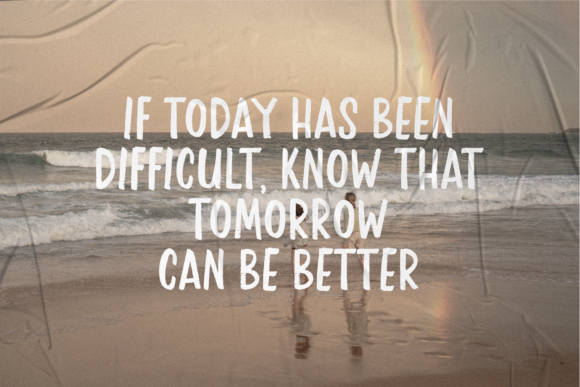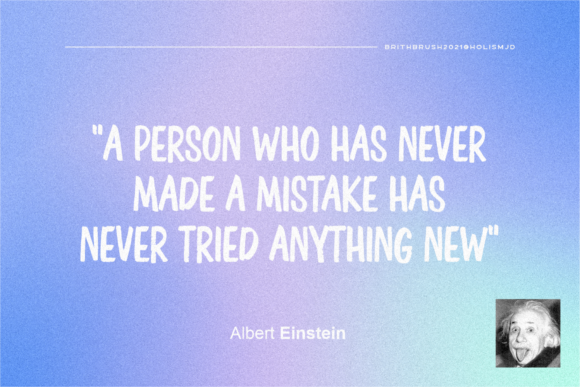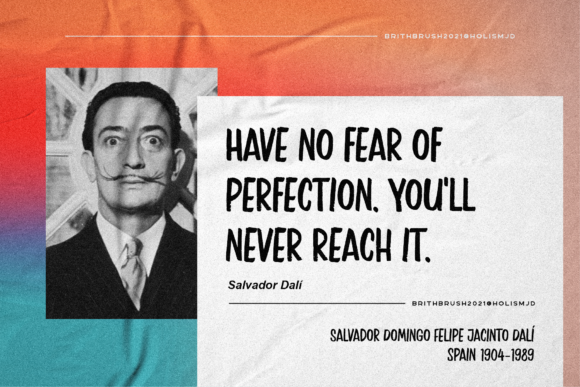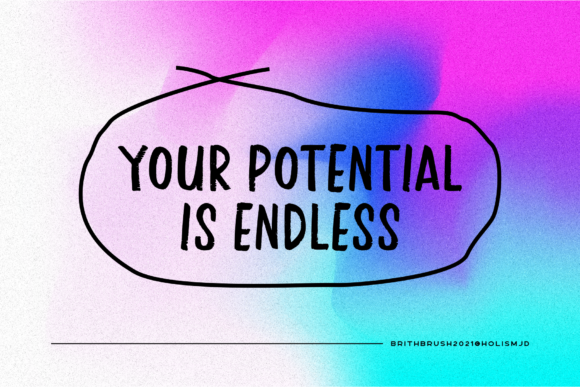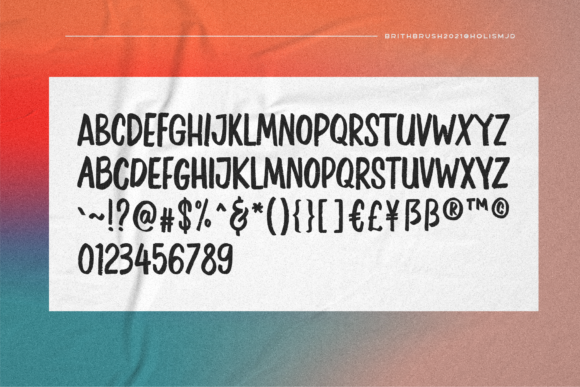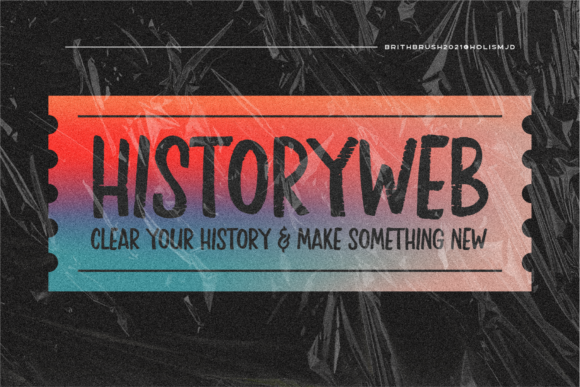
Introducing Brith Brush Font: The Perfect Blend of Style and Readability
In the world of typography, fonts play a crucial role in conveying the tone and personality of a brand or design. For designers and crafters, finding the right font can be a daunting task, especially when it comes to creating visually stunning and effective designs. This is where Brith Brush Font comes in – a modern display font that is readable, bold, and stylish, making it perfect for fashion branding or editorial designs.
What Makes Brith Brush Font Stand Out?
Brith Brush Font is defined by its smooth curves, which give it a unique and elegant look. This font is designed to make a statement, with its bold and eye-catching style, making it perfect for headlines, titles, and other display purposes. The smooth curves also ensure that the font remains readable, even at larger sizes, making it a versatile choice for various design projects.
Perfect for Fashion Branding and Editorial Designs
Fashion branding and editorial designs require a font that is stylish, sophisticated, and attention-grabbing. Brith Brush Font ticks all these boxes, making it an excellent choice for designers working in these fields. The font’s modern and elegant look is perfect for creating stunning fashion logos, magazine headlines, and editorial spreads. Its bold style ensures that your designs stand out, while its readability ensures that your message is conveyed clearly.
Why Choose Brith Brush Font?
There are several reasons why designers and crafters should consider adding Brith Brush Font to their projects:
- Readability: Despite its bold style, Brith Brush Font remains highly readable, even at larger sizes.
- Style: The font’s smooth curves give it a unique and elegant look that is perfect for fashion branding and editorial designs.
- Versatility: Brith Brush Font can be used for a variety of design projects, from logos and headlines to editorial spreads and packaging.
How to Use Brith Brush Font in Your Designs
Using Brith Brush Font in your designs is straightforward. Here are a few tips to get you started:
- Pair it with a simple font: To create visual interest, pair Brith Brush Font with a simple font for body text.
- Experiment with sizes: Play around with different sizes to create a hierarchy of information and add visual interest to your designs.
- Use it for headlines: Brith Brush Font is perfect for headlines and titles, making it an excellent choice for magazine spreads, blog posts, and social media graphics.
| Font Name | Brith Brush Font |
| Author | 24Design Studios |
In conclusion, Brith Brush Font is a modern display font that is readable, bold, and stylish, making it perfect for fashion branding or editorial designs. Its smooth curves give it a unique and elegant look, while its readability ensures that your message is conveyed clearly. With its versatility, ease of use, and stylish look, Brith Brush Font is an excellent addition to any design project. So, add it confidently to your projects, and you will love the results.